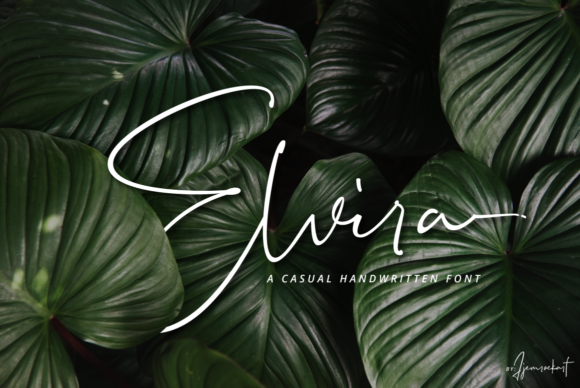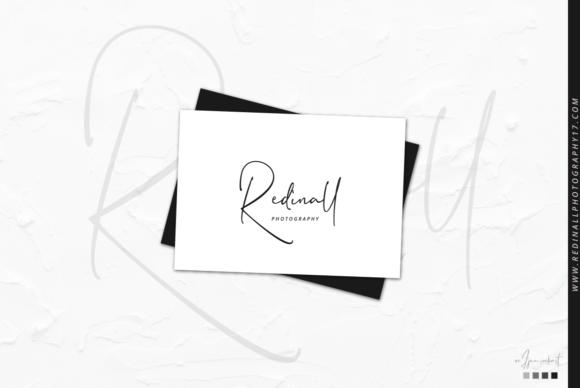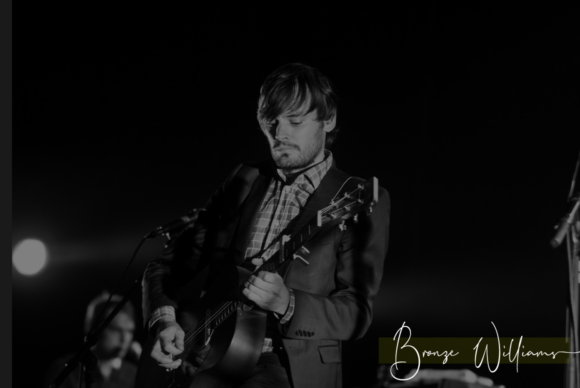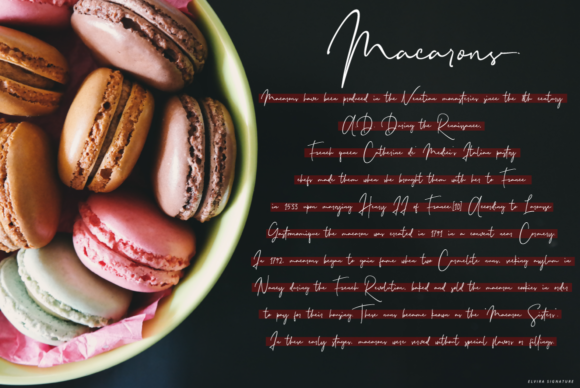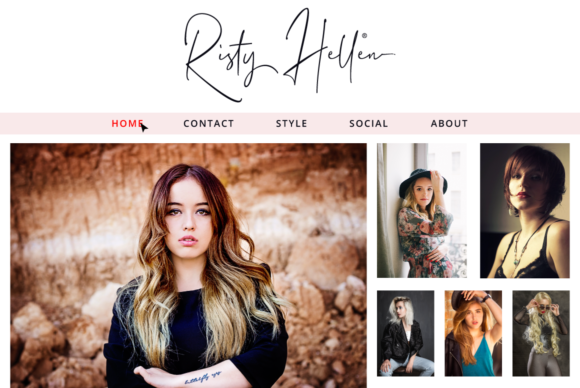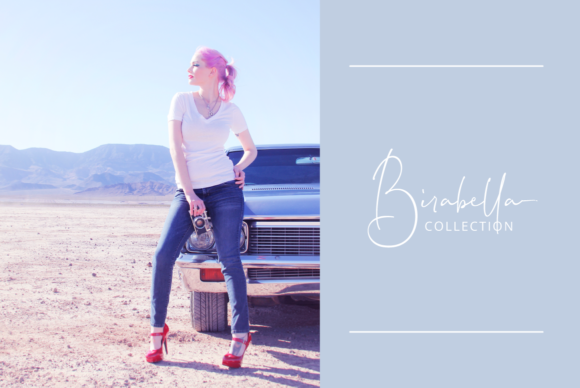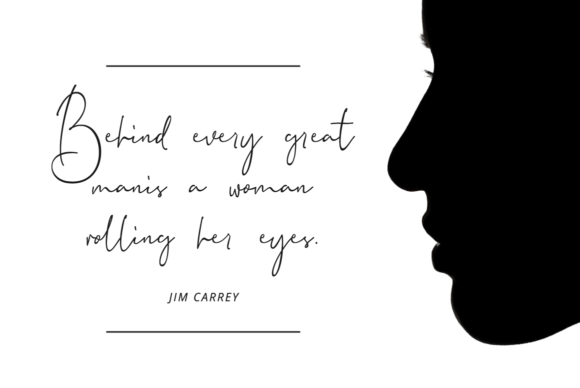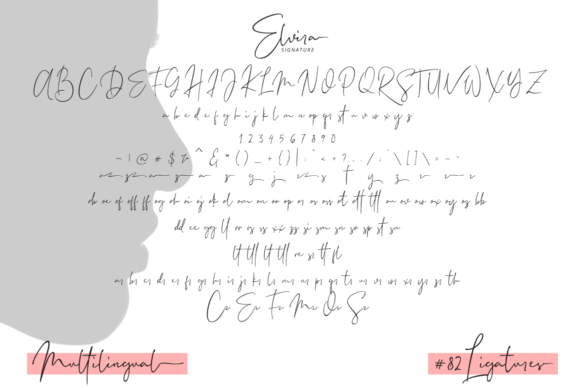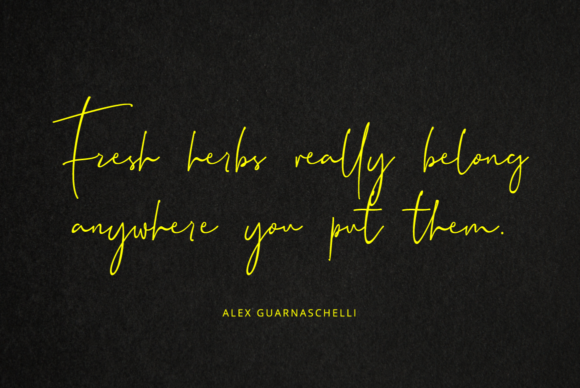
Elvira Font
About Elvira Font
The Elvira is a handwritten signature typeface coming with lots of stylistic ligatures. Its classy energetic look makes it the perfect fit for feminine logos, printed quotes, invitation cards, social media headers, product packaging and a lot more!